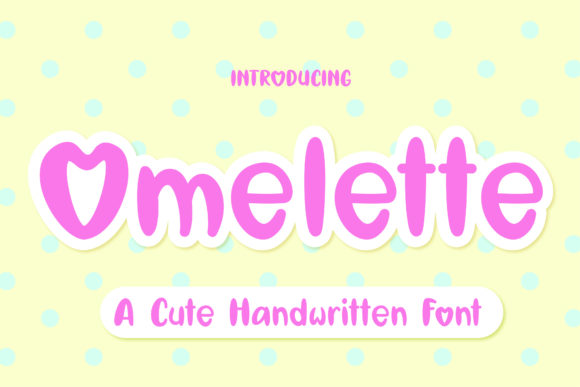
Omelette Font
Download Omelette Font for free! Created by GoodMoodType and published by Griffin Dodson, this script font family is perfect for adding a unique touch to your designs.
Immerse yourself in the enchanting world of Omelette Script, where handwritten artistry seamlessly blends with digital magic. This captivating font is a symphony of sophistication and playfulness, designed to elevate your creative projects to new heights.
With its natural and unique style, Omelette effortlessly adapts to a boundless array of designs. Its fluid strokes invite you to delve into a world of endless variations, igniting your imagination and allowing your creativity to flourish.
Picture your words dancing across wedding invitations, adding a touch of elegance and romance. Envision thank-you cards adorned with heartfelt messages, rendered in the distinctive charm of Omelette. Create captivating quotes that resonate with your audience, as if whispered from the heart itself.
Omelette's versatility knows no bounds. Craft stylish greeting cards that evoke emotions and convey sentiments in a truly personal way. Design logos and business cards that exude a distinct and memorable identity, leaving a lasting impression on your clients. Unleash your creativity and explore the infinite possibilities that await you with Omelette Script.